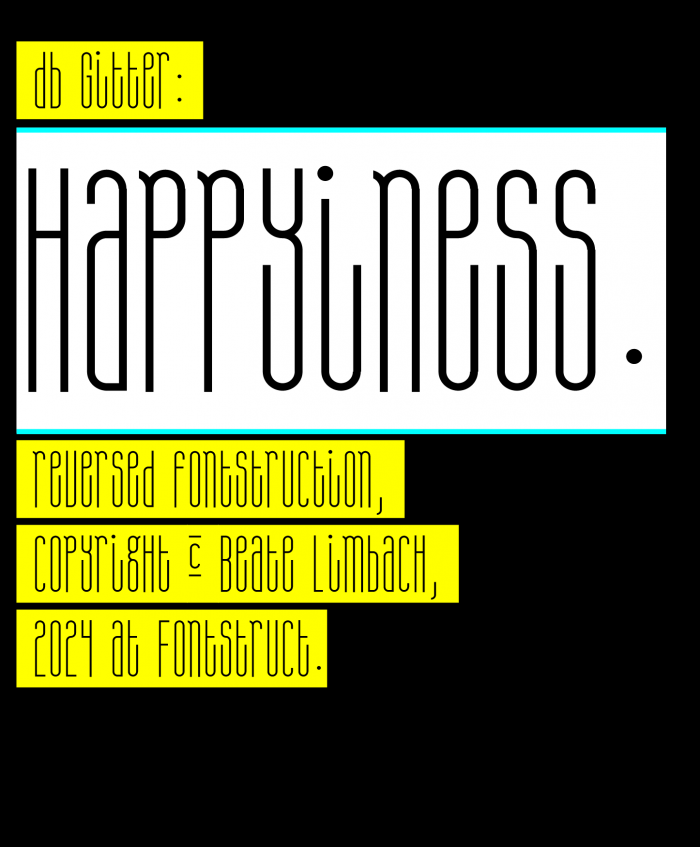
Very pretty sans serif font. Was there a technical reason you chose inverted shapes instead of regular black strokes on white? The mixing of lowercase with capitals makes the text playful and jolly. 10/10
It was actually supposed to be an outline font. I had even thought about including it in Numberscomp. But I wasn't quite sure about some points yet.
So why a reverse font creation: the other day, while tidying up, I found my good old embossing machine for printing labels... and I thought it might be time to try out a negative font again. I'm thinking of creating a "normal" version.
How pretty and elegant, dear Maestra! (Please notice the exclamation mark at the bottom.)
Very pretty sans serif font. Was there a technical reason you chose inverted shapes instead of regular black strokes on white? The mixing of lowercase with capitals makes the text playful and jolly. 10/10
It was actually supposed to be an outline font. I had even thought about including it in Numberscomp. But I wasn't quite sure about some points yet.
So why a reverse font creation: the other day, while tidying up, I found my good old embossing machine for printing labels... and I thought it might be time to try out a negative font again. I'm thinking of creating a "normal" version.